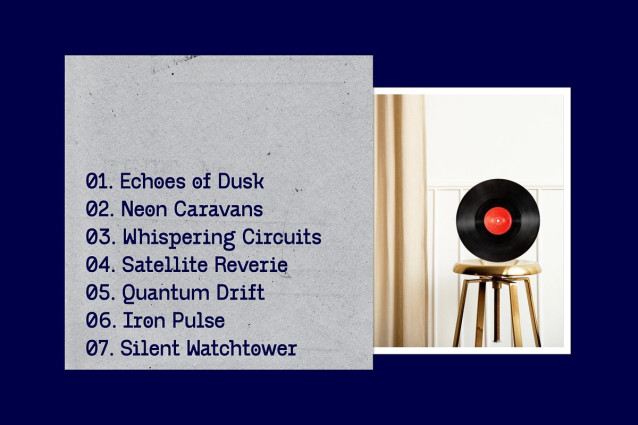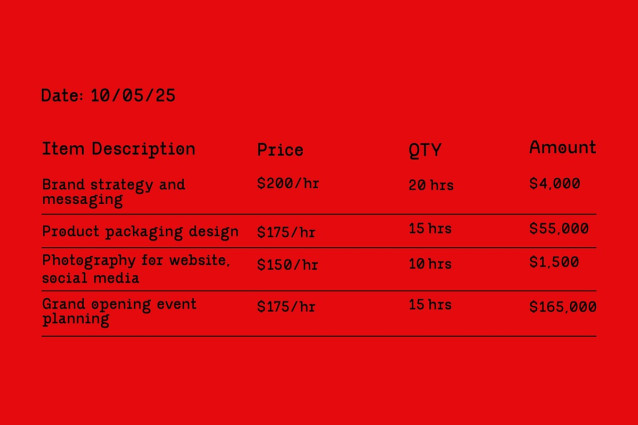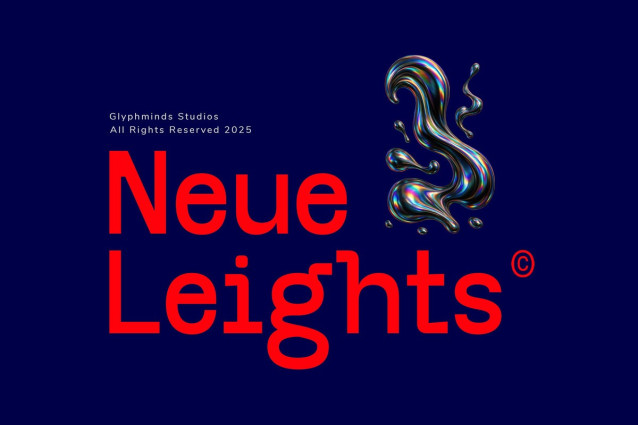
Neue Leights Font
Neue Leights Font, a stunning Monospaced Grotesque Sans-Serif font that blends modern elegance with a unique, fluid design! Perfect for bold headlines, logos, and digital projects, this font’s iridescent-inspired style will make your work stand out.